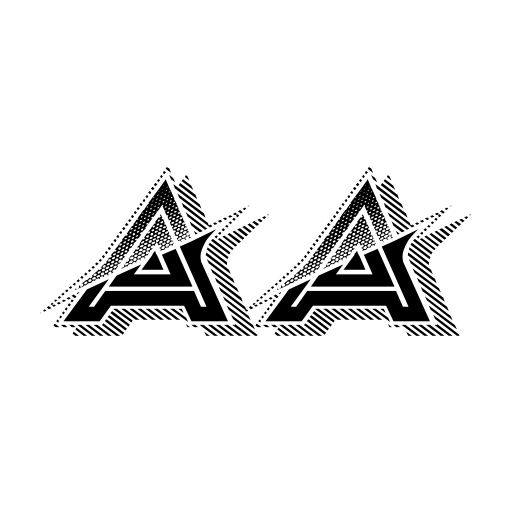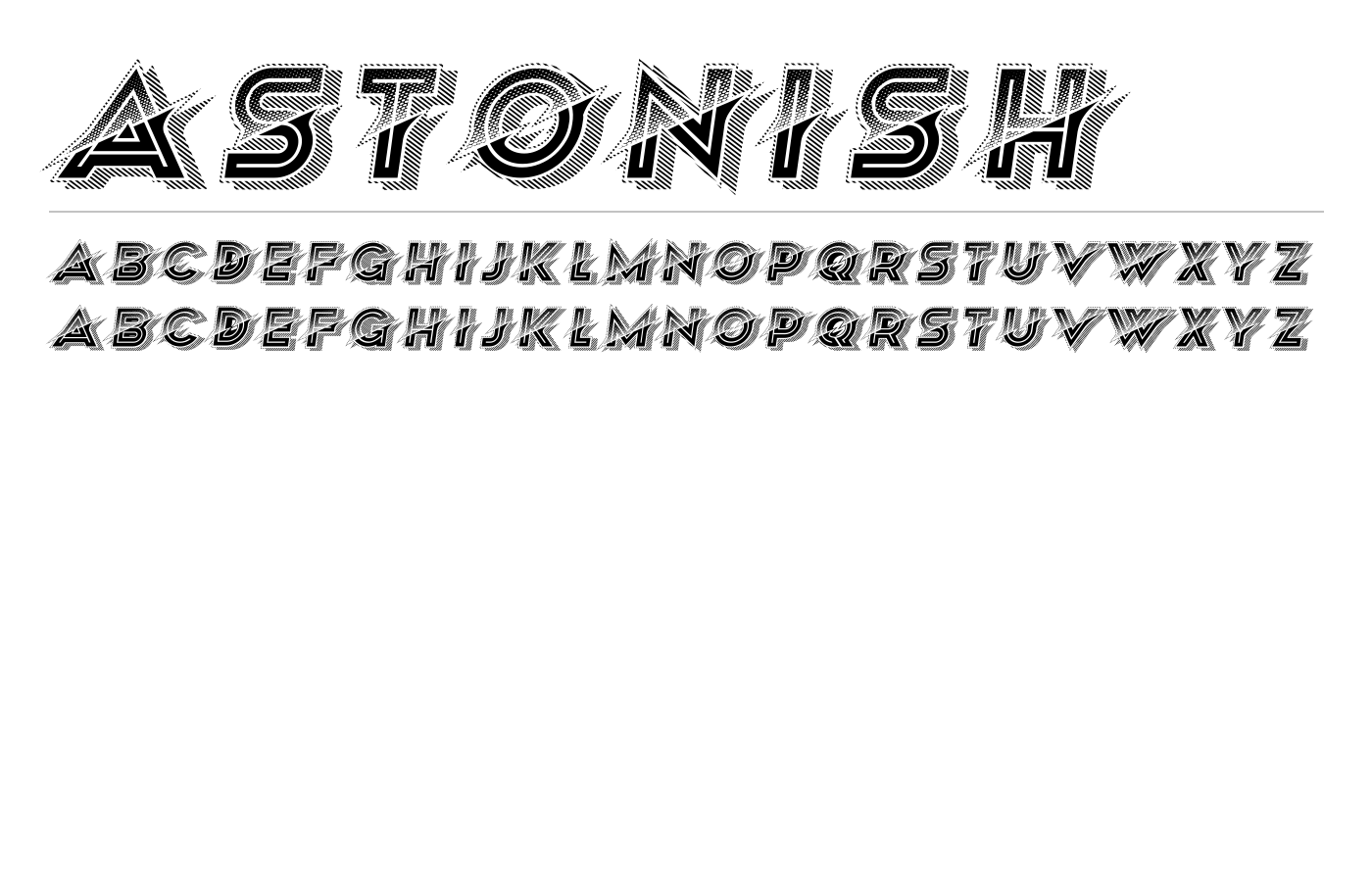
Astonish is a bold, decorative sans serif font that captures attention with its unique layered lines and sharp diagonal cuts, creating a dynamic, almost 3D effect. Its uppercase letterforms are geometric and modern, making it perfect for eye-catching headlines, posters, and branding where a strong, energetic personality is needed. This font works especially well in creative and entertainment contexts, bringing a sense of motion and excitement to any design.
Astonish Font
About Astonish Font